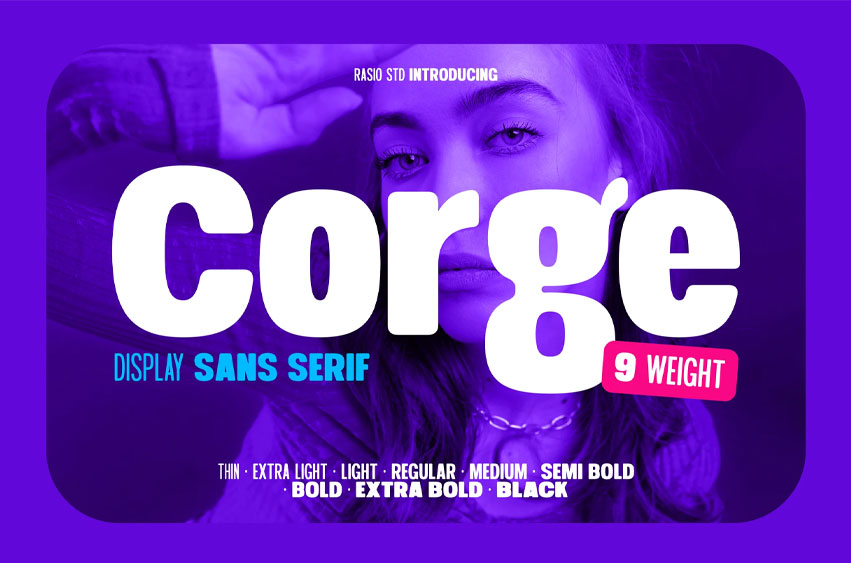
Corge Font Display Sans Serif is a display sans serif font with a bold, geometric, and highly eye-catching design. Its letterforms are rounded, solid, and visually consistent, making it perfect for modern, expressive typographic needs.
With 9 versatile weights from Thin · Extra Light · Regular · Medium · Semi Bold · Bold · Extra Bold · Black. Designed for versatility and impact, this font includes uppercase and lowercase characters, numerals, multilingual support, and stylish ligatures.
Cago Display Sans Serif its strong geometric shapes and smooth curves. Cago is perfect for branding, logo design, poster headlines, packaging, and editorial use. Whether you’re working on a corporate identity or a playful campaign, this display typeface delivers clarity and personality across all formats.
Corge Font Preview